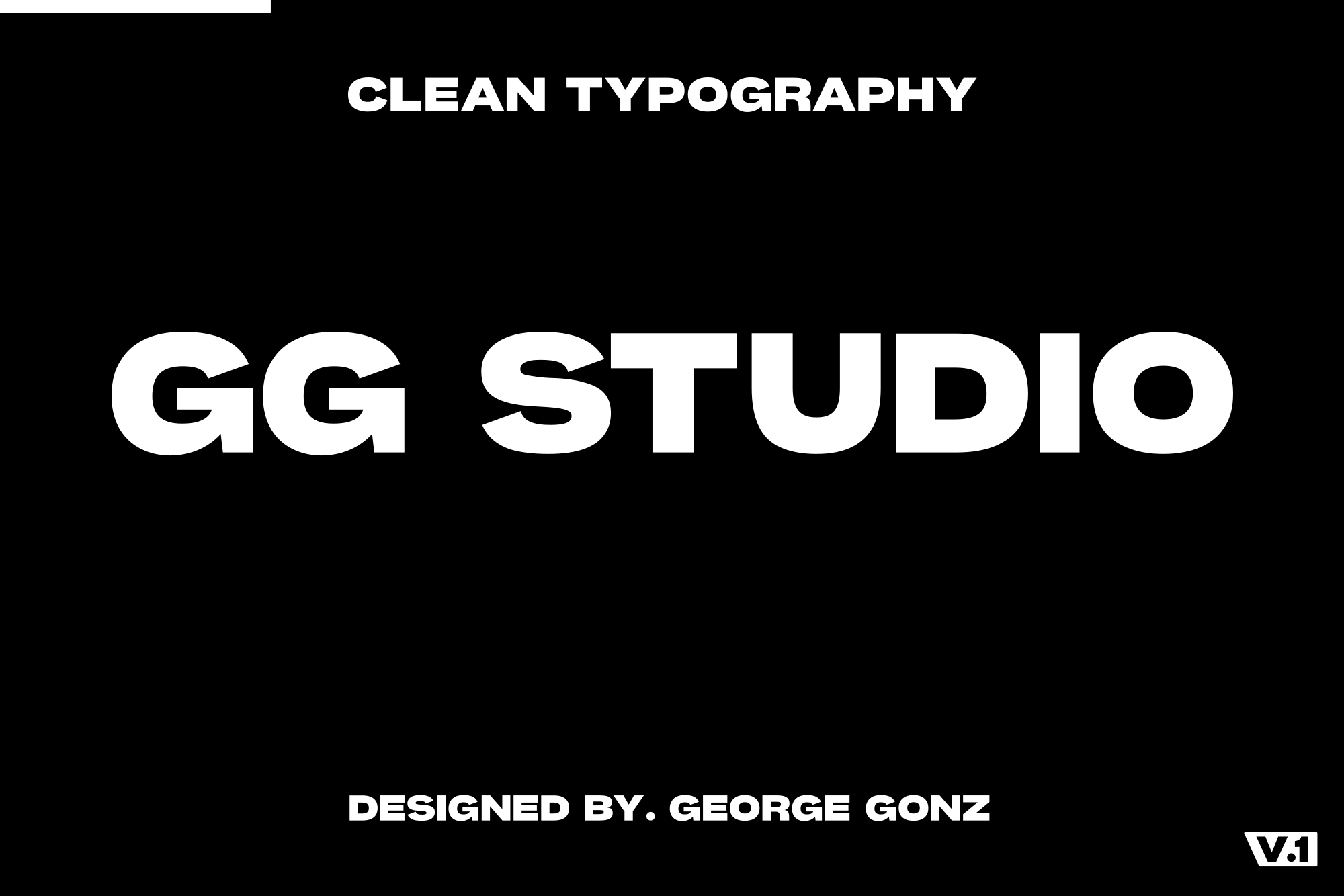
GG Studio - Typeface
The "GG Studio" font is designed to convey visual and emotional impact. His two styles stand out in posters, fashion, workshops, headlines, newspapers, and large format prints such as films. The design bases of "GG Studio" are inspired by sans serif and brutalist typography
If you are a graphic designer or a creative, use "GG Studio" to design logos, music-movie flyers, and among others where your mission is to highlight a headline.